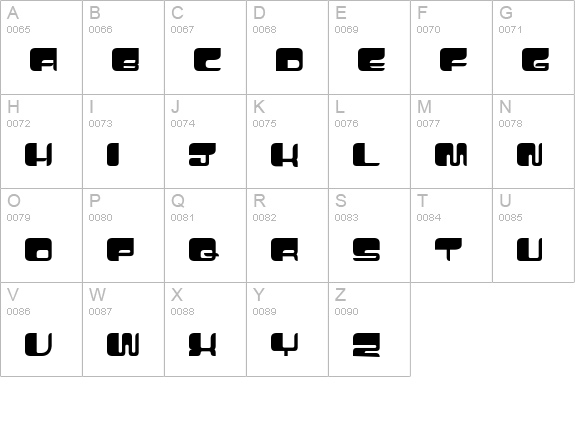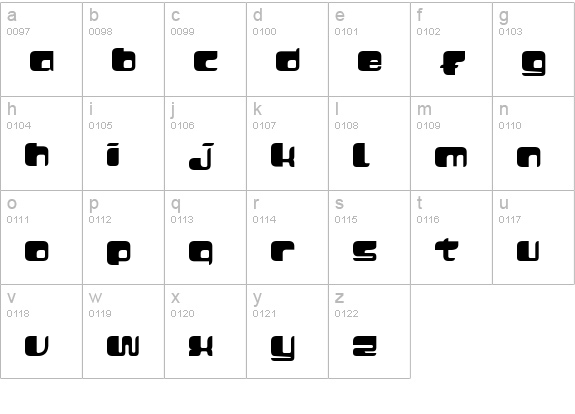
AddFatMan Font Details
AddFatMan font is a bold and eye-catching typeface that exudes strength and character. With its thick, rounded letterforms, this font is perfect for making a bold statement in your designs. Whether you're looking to add a touch of playfulness or a touch of whimsy, AddFatMan font is sure to stand out. Not only does AddFatMan font pack a punch visually, but it is also versatile and easy to read, making it a great choice for a variety of design projects. Use it for headlines, logos, posters, and more to give your work a unique and memorable look. Best of all, AddFatMan font is free to download at FontsMarket.com, so you can start using it in your projects right away. Don't miss out on this opportunity to add a touch of boldness and personality to your designs with AddFatMan font.